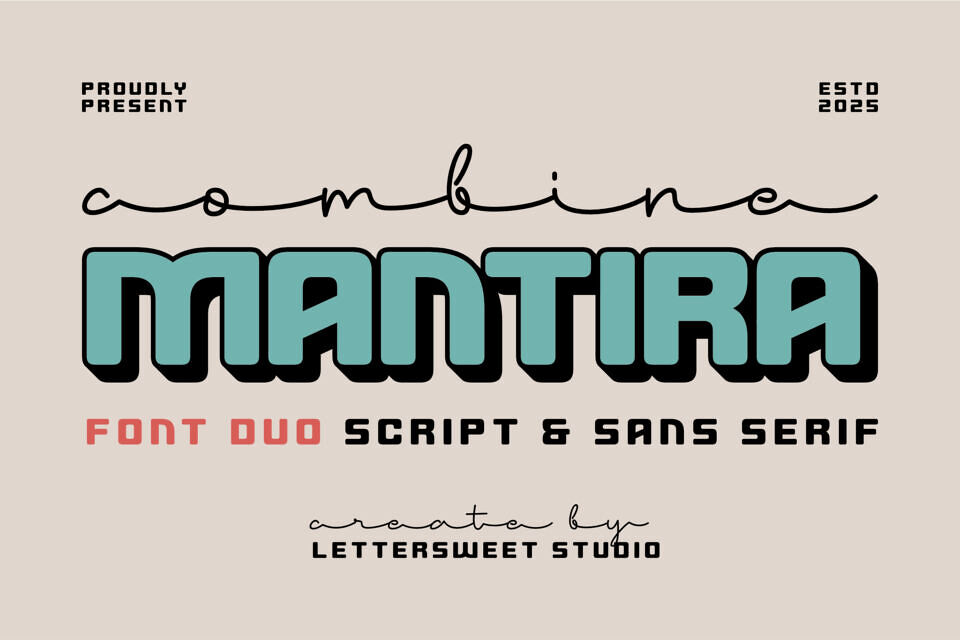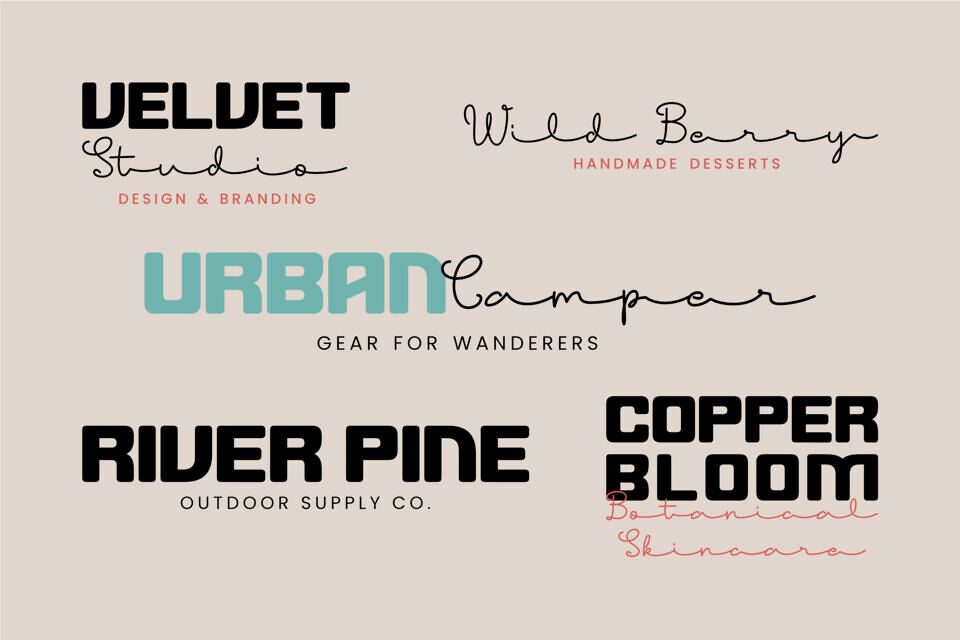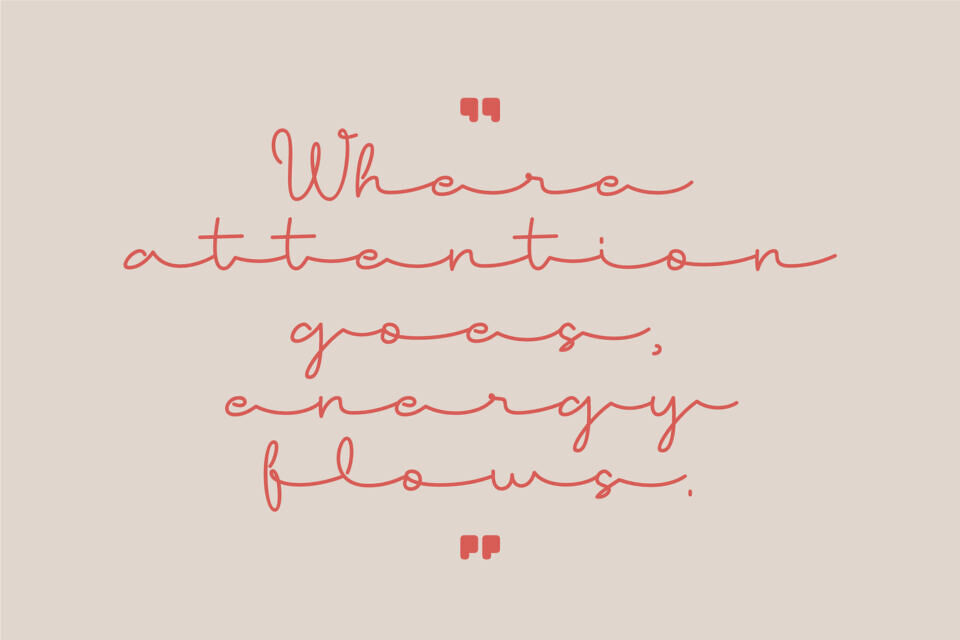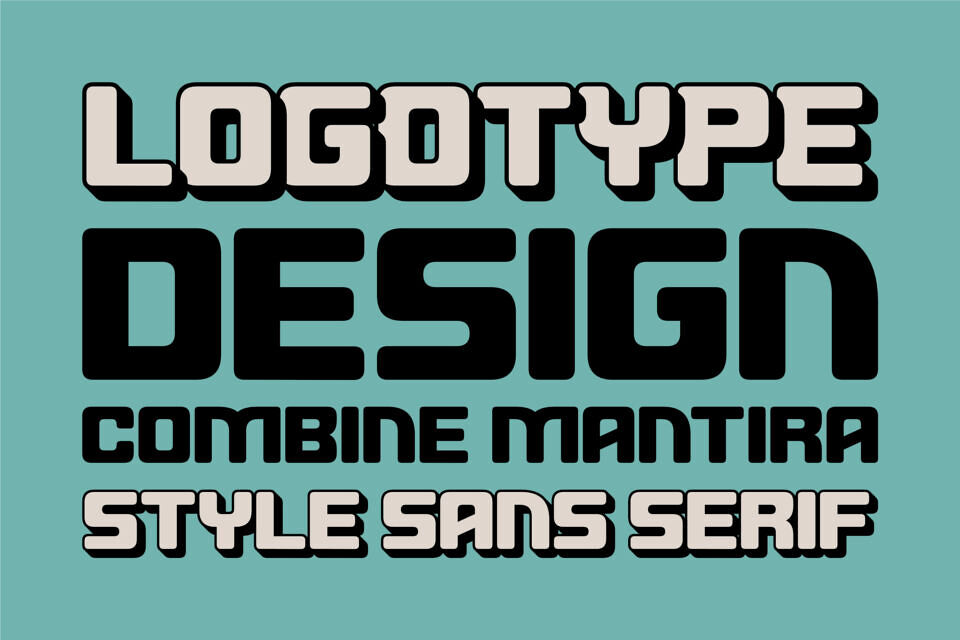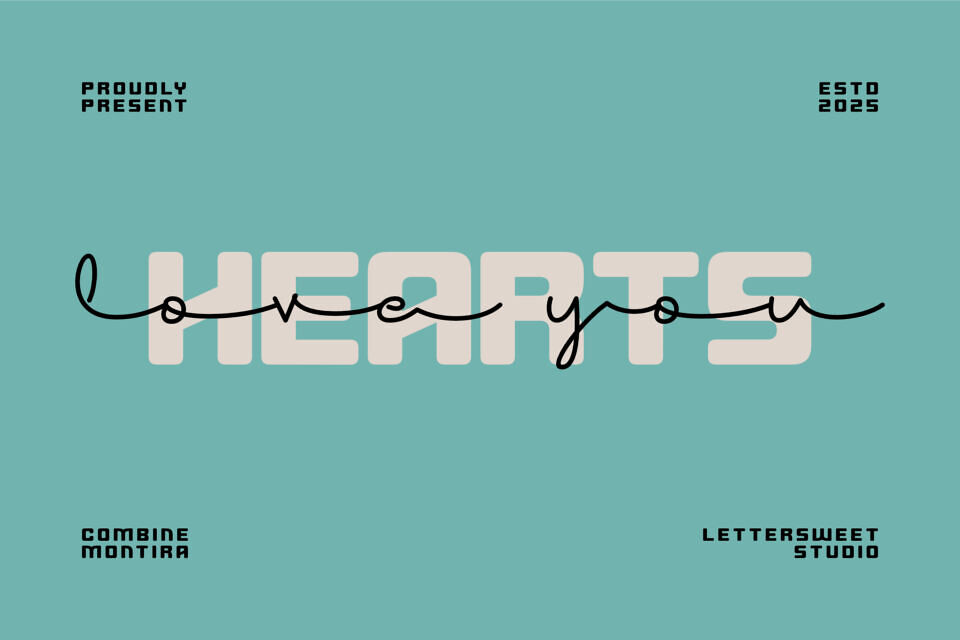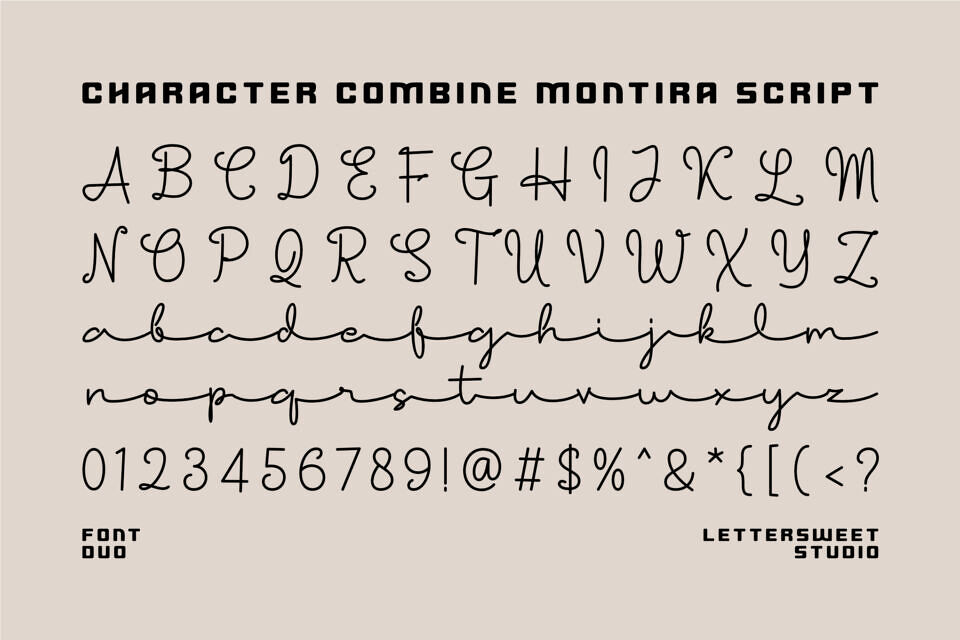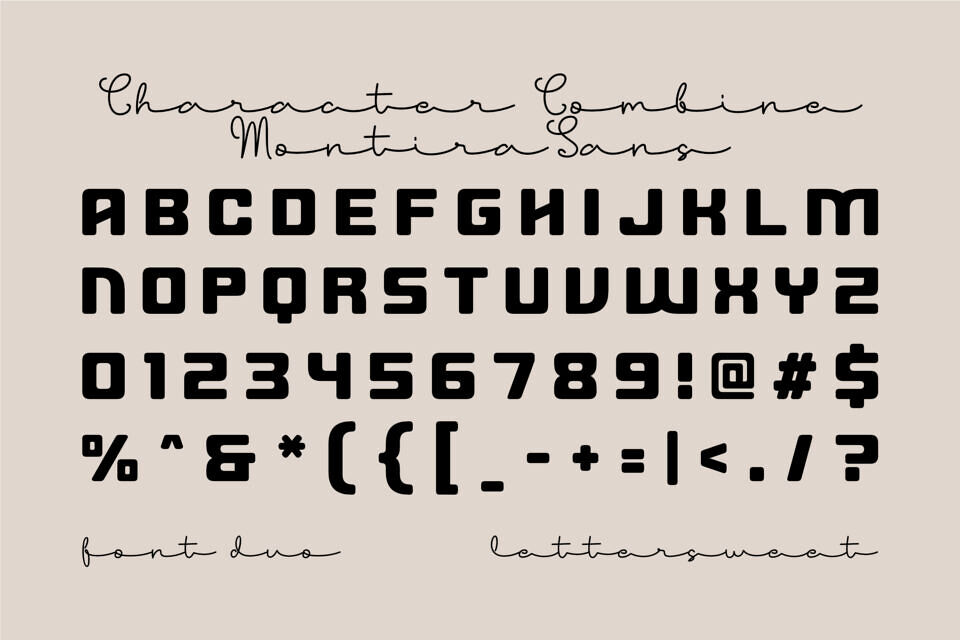
Combine Montira Font
Combine Montira is a font duo that pairs a smooth monoline script with a chunky rounded sans—perfect for attention-grabbing titles. The plump, rounded sans delivers a retro-modern vibe and takes outlines or drop shadows beautifully for a layered 3D look.
The script adds friendly, handwritten warmth, so both styles complement each other for logos, posters, packaging, labels, and social media. Use them together for a headline–tagline combo, or separately when you need different voices within the same brand style.
Combine Montira is great for: logo & wordmark, headlines, event posters, stickers & merchandise, product packaging, YouTube thumbnails, Instagram posts, and any project with a groovy vintage mood.